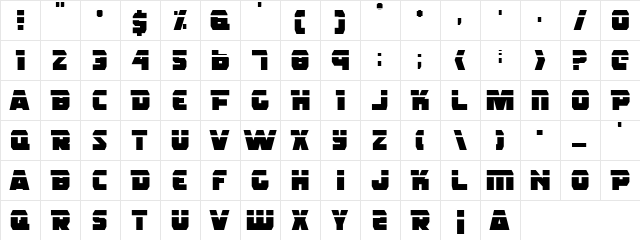
Rogue Hero Laser Laser
Design Context for Rogue Hero Laser Typeface
Rogue Hero Laser is a composed and adaptable typeface that performs quietly and consistently across a wide range of design contexts.